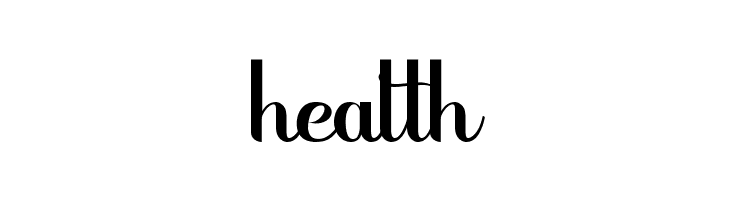
A playful, handwritten font with bold, energetic strokes.
A playful, bold font with thick, rounded characters ideal for creative projects.
A bold, angular font with a graffiti-inspired, dynamic style.
A bold, graffiti-inspired font with sharp, angular edges and a 3D effect.
A bold, decorative font with a vintage, three-dimensional style.
A playful, human-figure integrated font with a bold, dotted texture.
A playful, house-themed font with a whimsical and creative design.
A playful, cartoonish font with bold outlines and a hand-drawn style.
A pixelated, retro-style font with a digital aesthetic.
A bold, decorative font with a unique patterned texture.
A playful, casual handwritten font with flowing strokes.
A playful, decorative font with outlined letters and sprinkle-like dots.
A bold and decorative font with intricate details and sharp angles.
A playful, handwritten font with an organic, casual style.
A playful, handwritten font with a casual and whimsical style.
A playful, bold font with a bubbly, cartoonish style and rounded edges.
A playful, hand-drawn font with tall, narrow letters and sketch-like outlines.
A bold, playful font with exaggerated curves and high contrast, perfect for creative projects.
A playful, whimsical font with exaggerated curves and varying stroke widths.
A playful, hand-drawn font with characters enclosed in sketched squares.